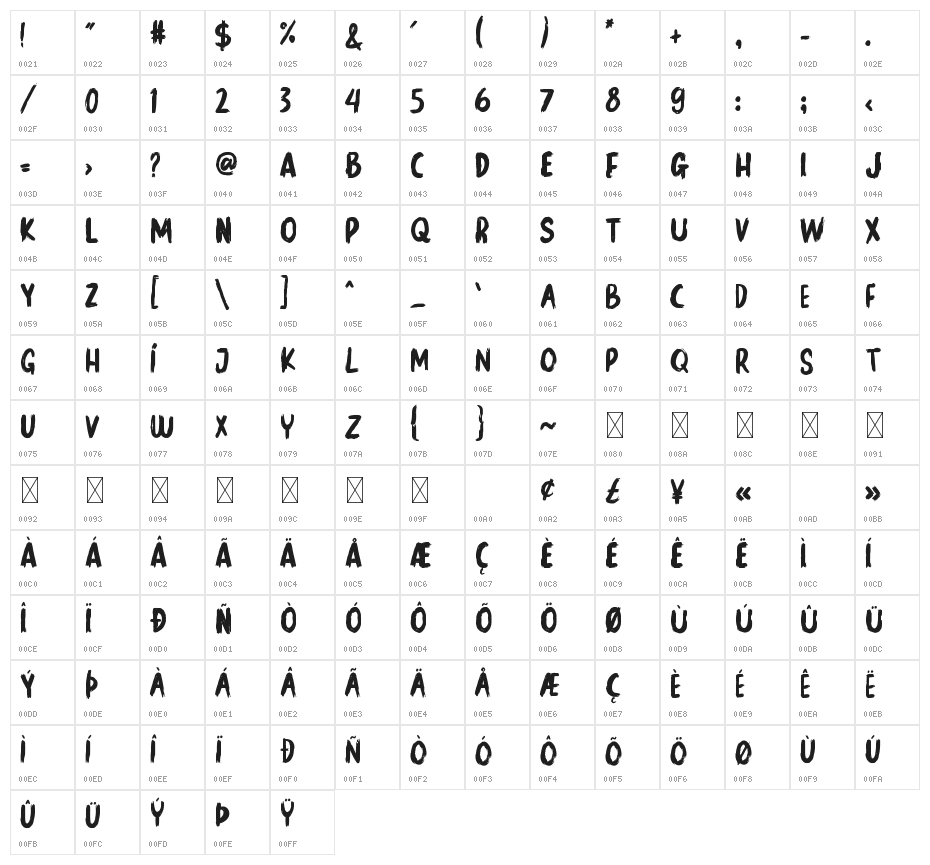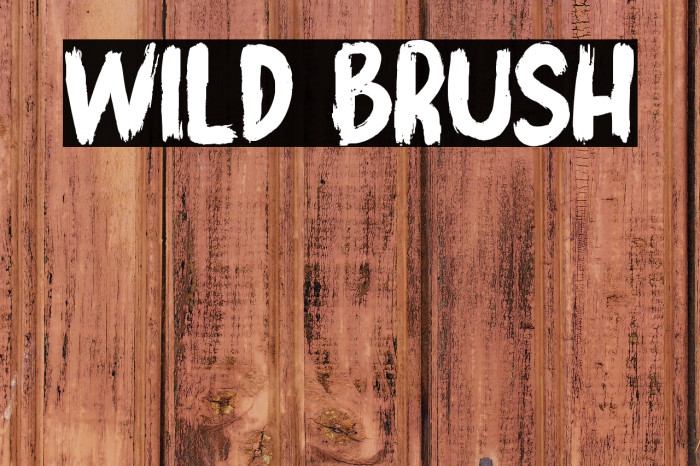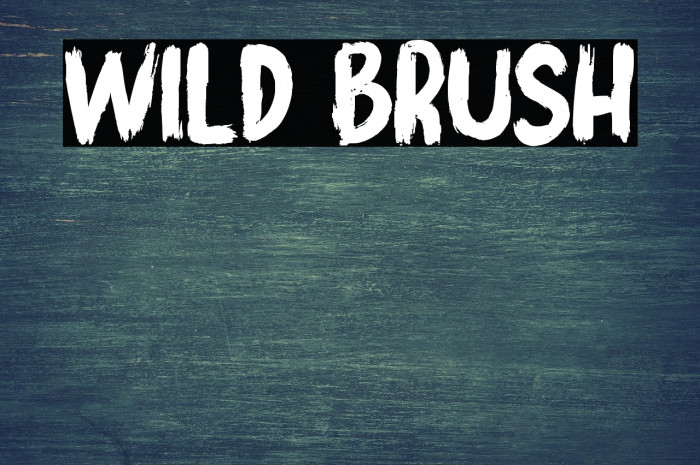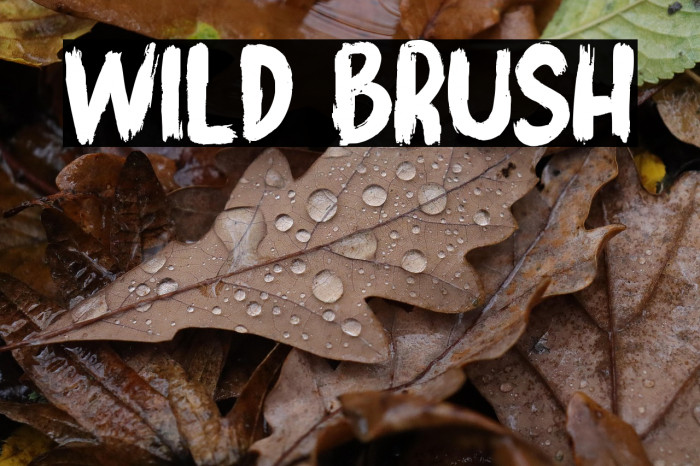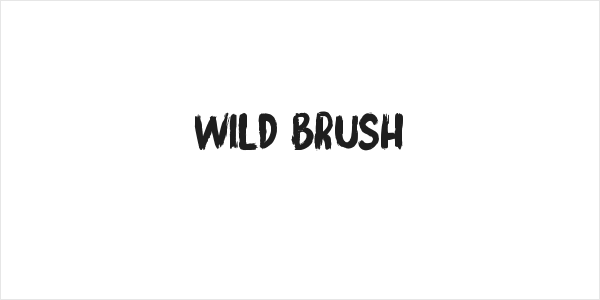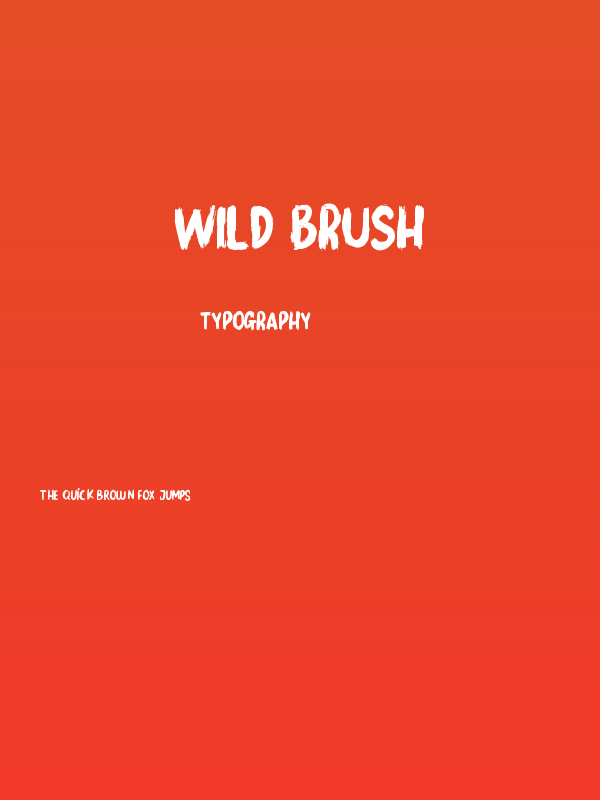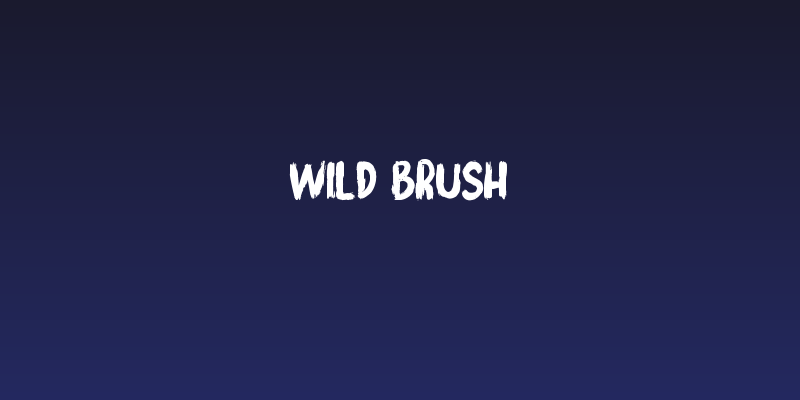
WILD BRUSH Font
WILD BRUSH Description
This font exudes a bold and energetic style, reminiscent of brush strokes with a raw and dynamic appearance. The characters are crafted with uneven edges, giving them a hand-painted look that adds a sense of movement and spontaneity. The uppercase and lowercase letters maintain a consistent style, with a slightly condensed form that enhances their impact. The numbers and special characters follow the same aesthetic, ensuring a cohesive visual experience. This font is perfect for projects that require a touch of creativity and boldness, making it ideal for artistic and expressive designs.
| Proposed Projects | Ideal for posters, logos, branding, and any creative projects that require a bold and artistic touch. |